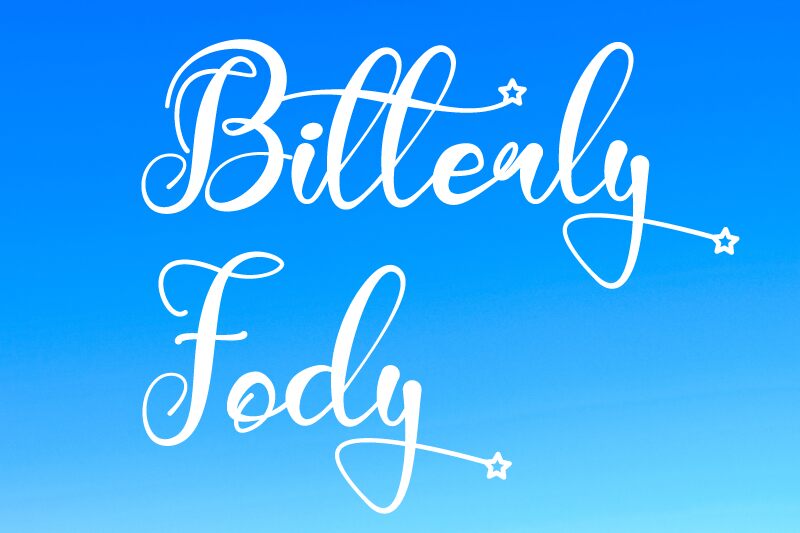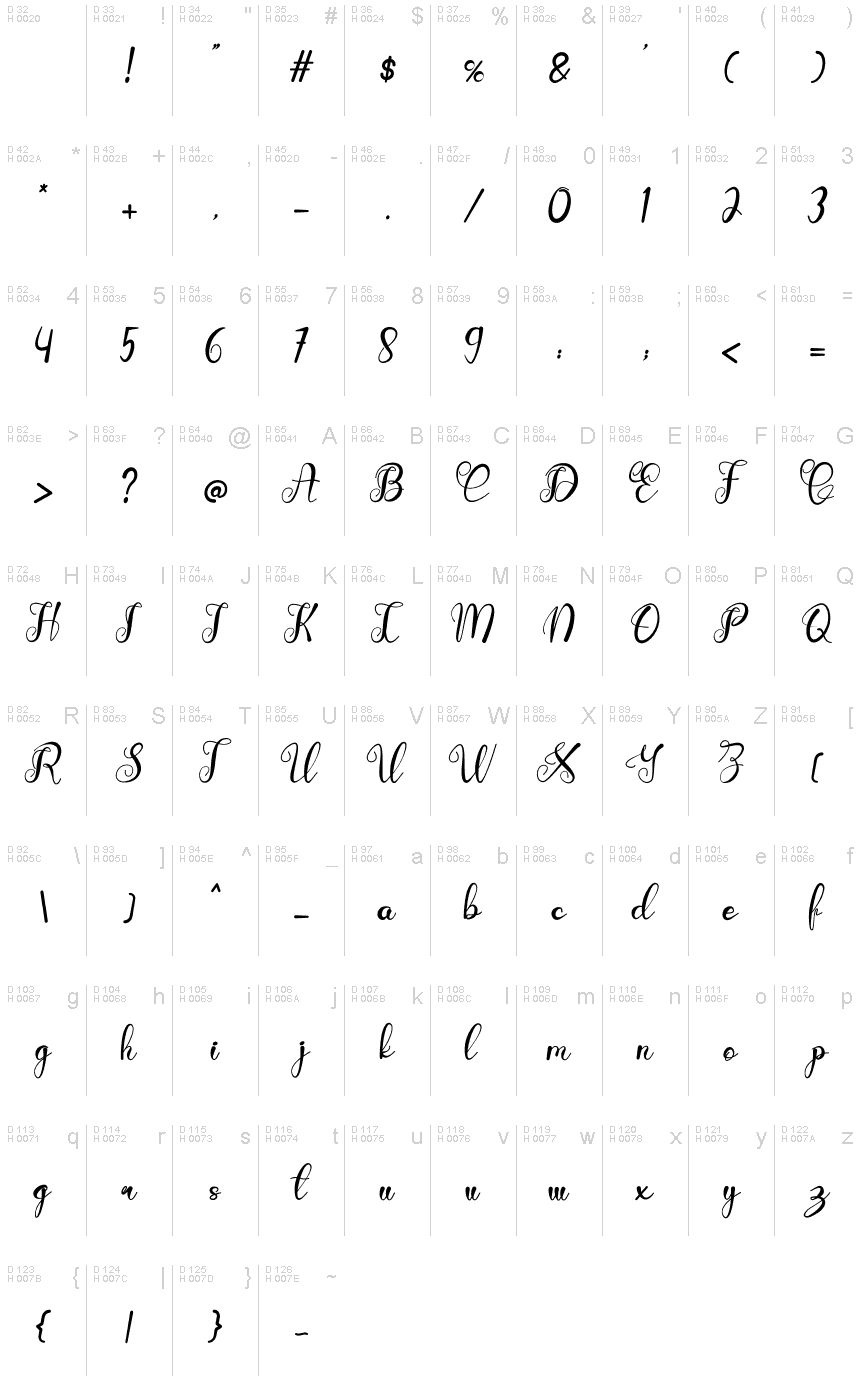
Bitterly Fody Italic
Bitterly Fody Italic, designed by Design Vector10, is a semi-light calligraphy font that exudes elegance and sophistication. Its fluid strokes and delicate curves make it perfect for invitations, greeting cards, and wedding stationery. The italicized style adds a touch of romance to any project it's used in, from love letters to poetry collections. Bitterly Fody Italic would also be ideal for branding materials such as logos and product packaging, lending a luxurious feel to any business. With its unique blend of softness and strength, this font is sure to make a statement in any creative endeavor.